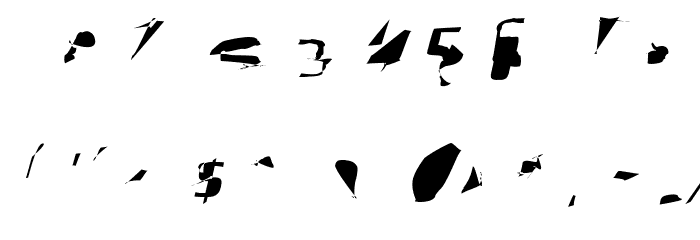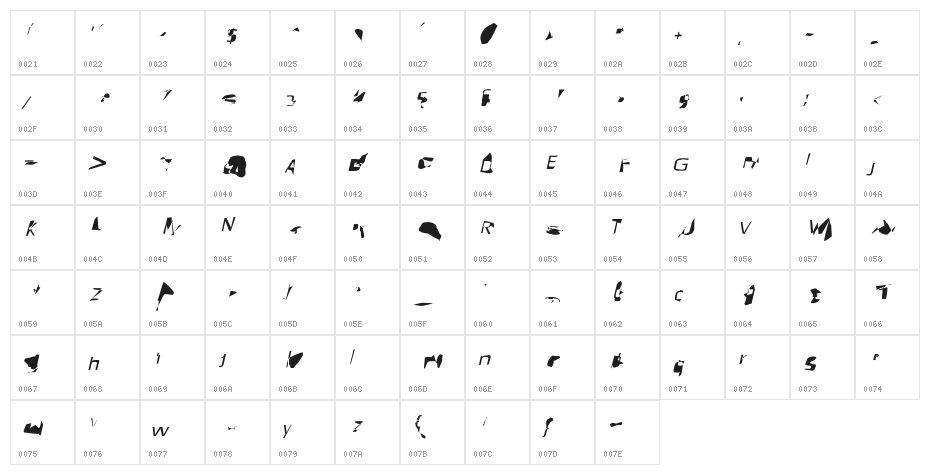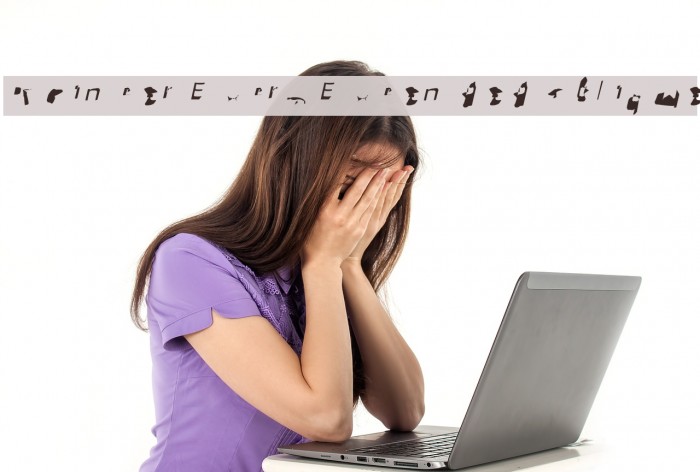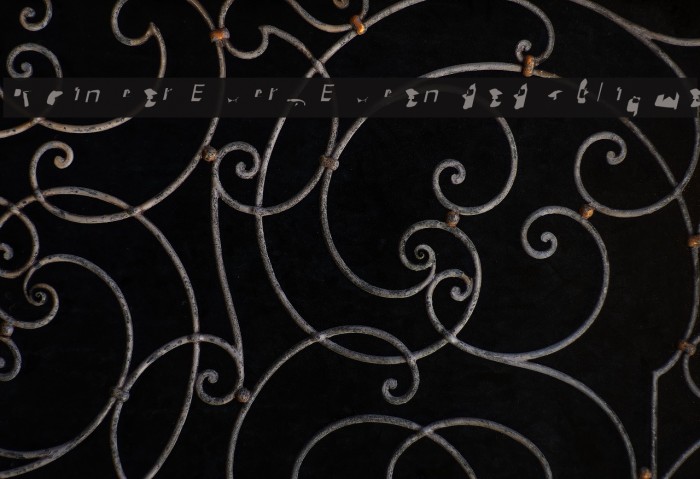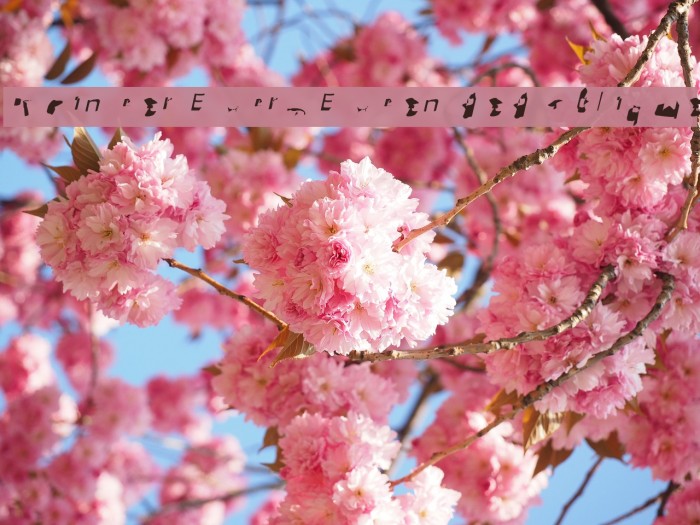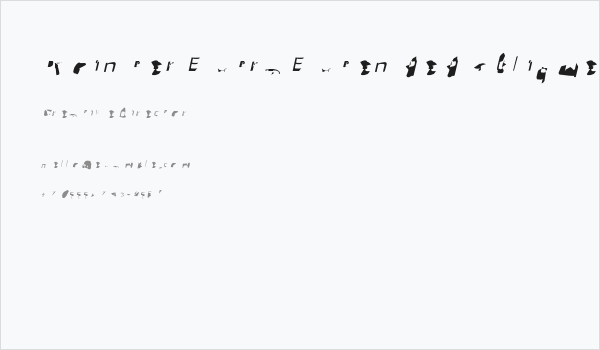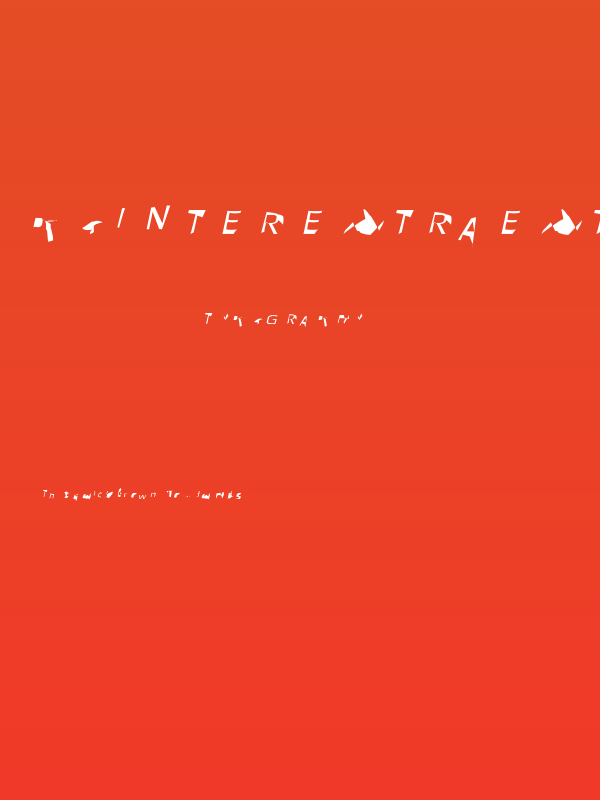
Pointer ExtraExtended Oblique Font
Pointer ExtraExtended Oblique Description
This font features a highly stylized and abstract design, characterized by its fragmented and distorted letterforms. The characters appear to be in motion, with sharp angles and irregular shapes that create a sense of dynamic energy. The overall appearance is chaotic yet intriguing, making it a unique choice for creative projects. The uppercase and lowercase letters, as well as numbers and special characters, all share this distinctive, deconstructed style. The font's oblique nature adds to its unconventional look, enhancing the sense of movement and fluidity.
| Overall Style | Modern, Abstract |
| Use Case | Logos, Headlines, Artistic Designs |
| Proposed Projects | Ideal for avant-garde posters, experimental art projects, or album covers seeking a bold, unconventional aesthetic. |